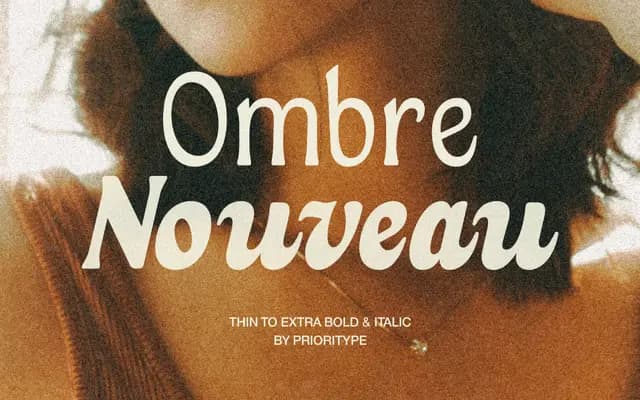
Ombre Nouveau
Ombre Nouveau specimen from Prioritype
A retro-inflected display serif family spanning eight weights with matching italics and a variable font file, aimed at editorial and branding work.
Eight weights from Thin to Extra Bold, each with an italic companion, give the family reasonable range for headline and identity use. A variable font file is included alongside OTF, TTF and WOFF formats, allowing continuous weight interpolation. The styling leans on Art Nouveau references and vintage warmth without committing fully to either period aesthetic.
A display serif with retro styling, positioned for headlines, branding and editorial use rather than continuous text. The name and aesthetic reference Art Nouveau influences blended with contemporary proportions.